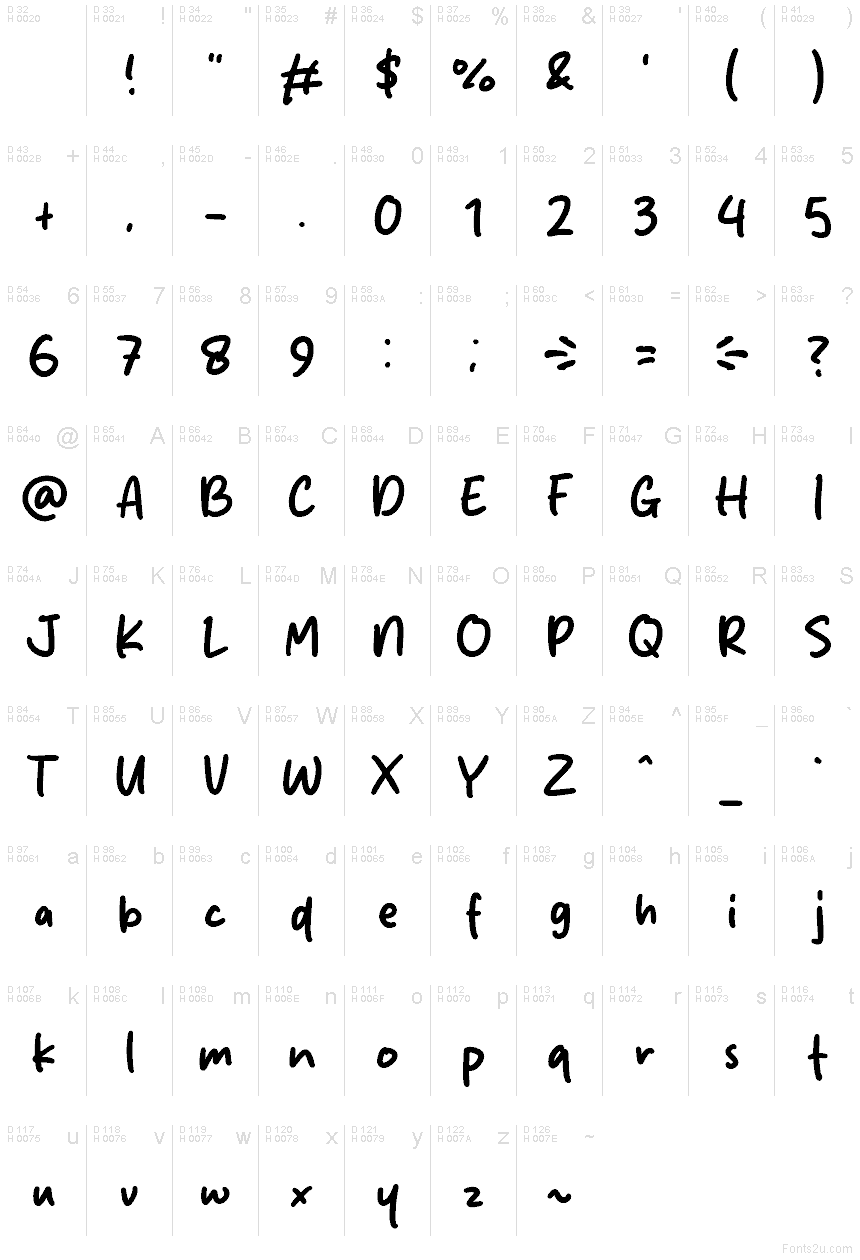
Honey Monly
Honey Monly font from Origin Type is a handwritten font with a casual style that makes everyone pay attention. Casual, expressive, and organic letters are found with ease here and designers will surely benefit from them on professional and personal projects where a personal feel is required for communication.
This free handwritten font will look great on T-shirts, internet website designs, food packaging, stationery designs like invitation cards and posters. It works on business logos and branding as well which means product labels can use this handwriting tool too.